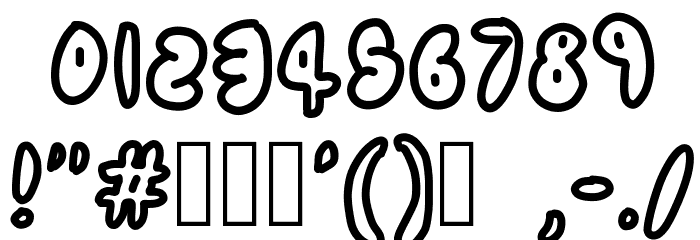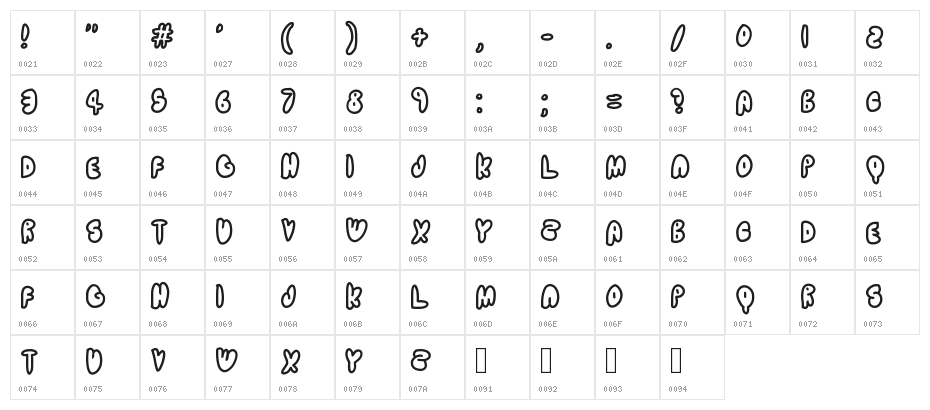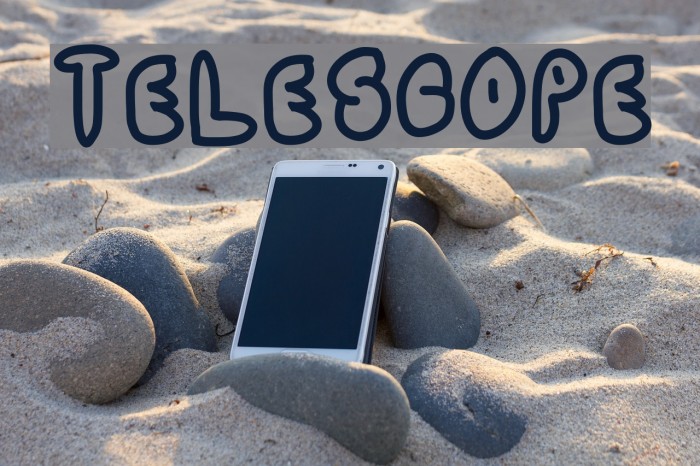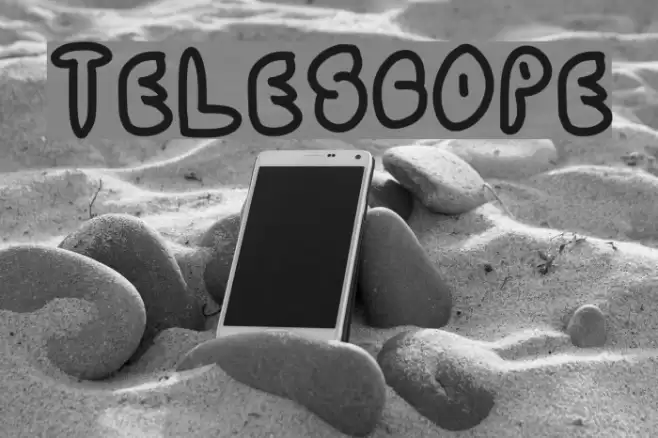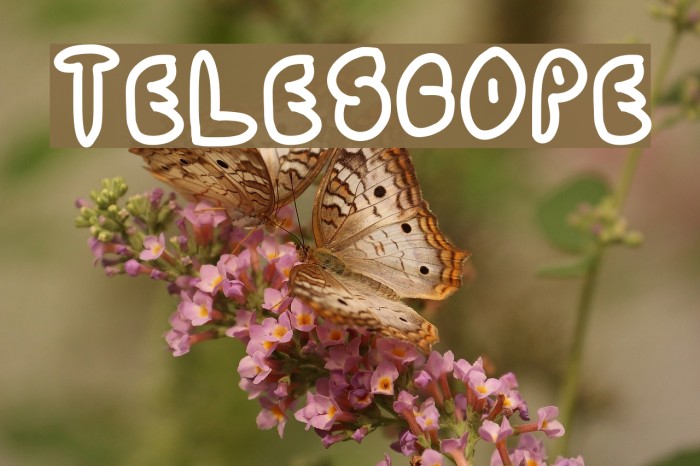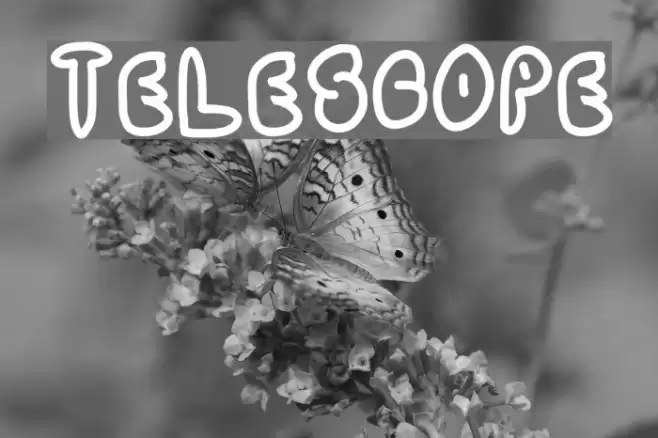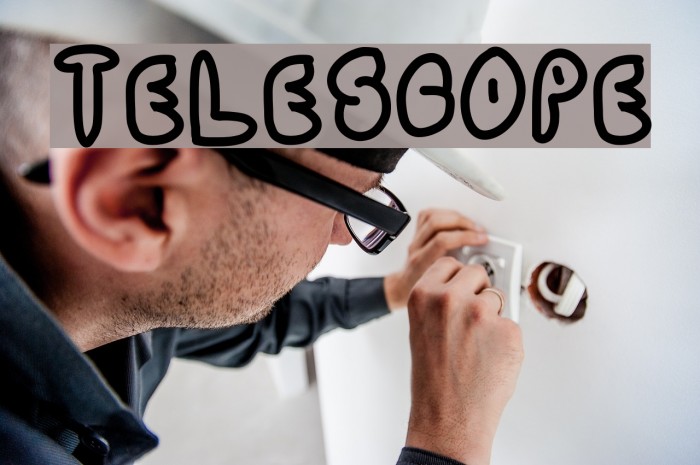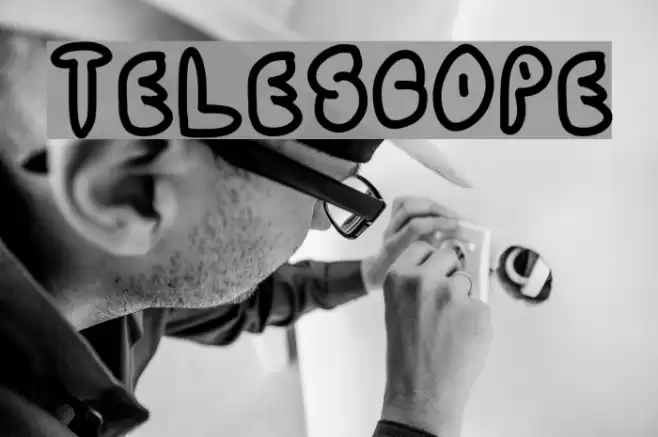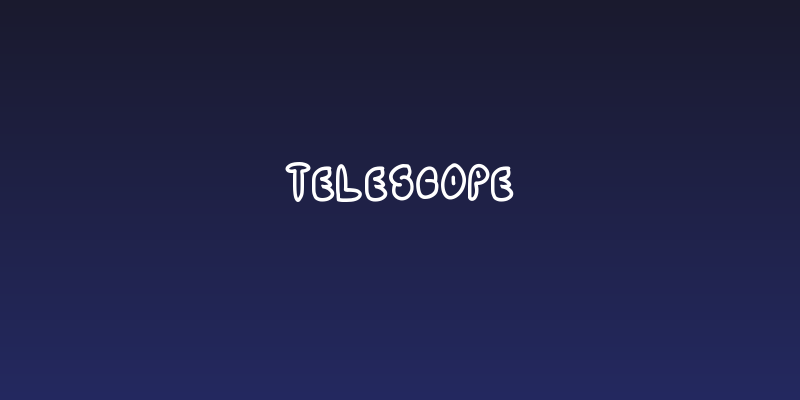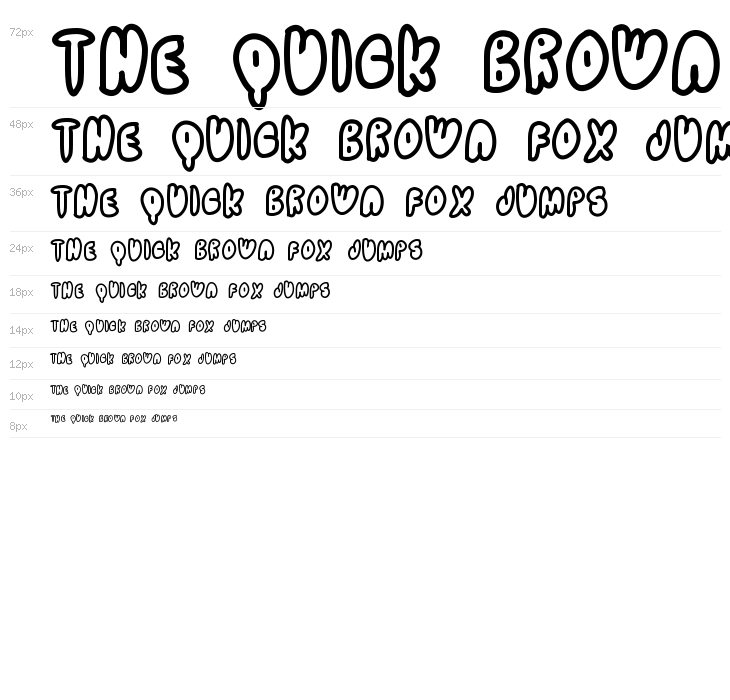
TELESCOPE Font
TELESCOPE Description
This playful and bold font features a bubble-like, rounded design with thick outlines, giving it a cartoonish and whimsical appearance. The characters are uniformly wide, with a consistent stroke thickness that adds to its bold and impactful look. The uppercase and lowercase letters maintain a similar style, enhancing the font's cohesive feel. Numbers and special characters are designed to match the playful theme, making them suitable for creative and informal projects. The font's unique style makes it stand out, perfect for capturing attention in various design contexts.
| Overall Style | Playful, Cartoonish |
| Proposed Projects | Ideal for children's books, comic strips, playful branding, and eye-catching posters. |